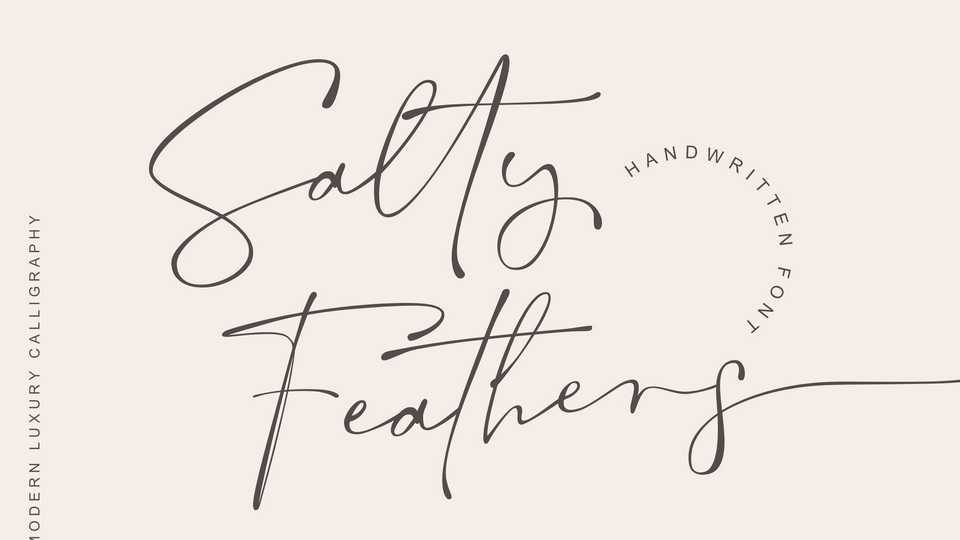
Download Salty Feathers font, an elegant luxury font that has organic smooth wet ink texture with modern style. Salty Feathers is perfect for branding, logos, invitation, masterheads and more.